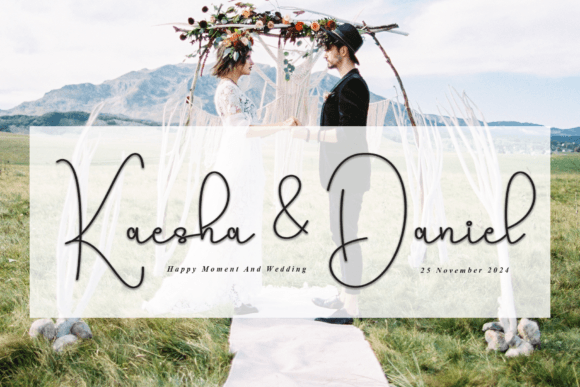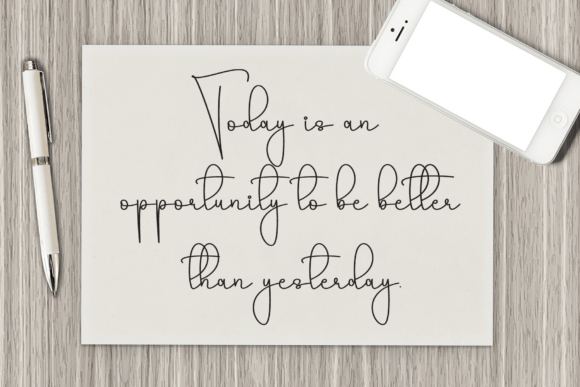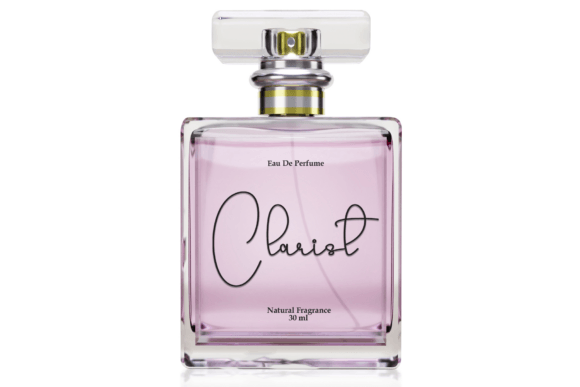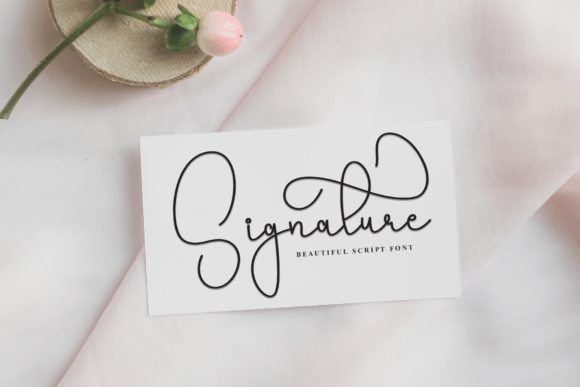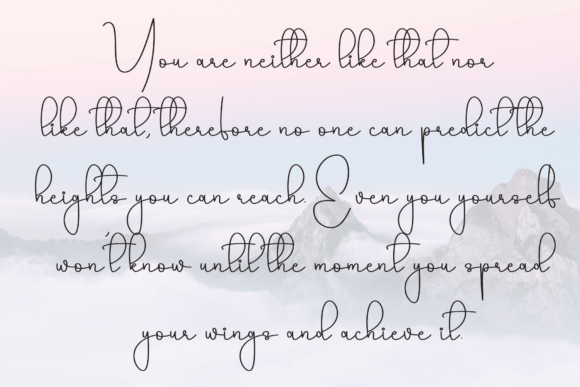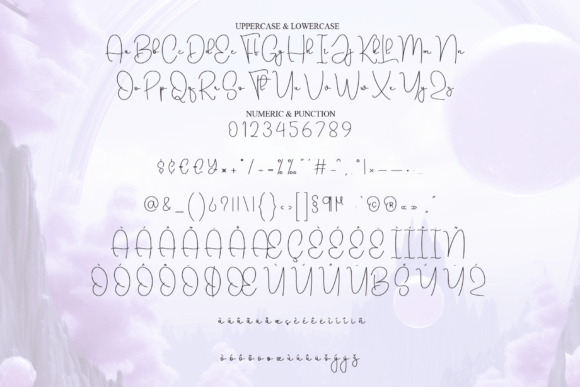
The Magic of Fantasy Font: Elevate Your Designs with Elegance
I’ll never forget the time I was working on a wedding invitation project, and my client asked for a font that would make their special day feel like a fairytale. I scoured the internet, tried countless fonts, but nothing seemed quite right. That was until I stumbled upon Fantasy Font. Its smooth, flowing letterforms and handcrafted feel instantly transported me to a world of romance and whimsy. I knew right then and there that I had found the perfect fit.
A Personal Review: What I Love and What to Watch Out For
- ✨ Elegant script font with a sophisticated feel
- ✅ Smooth, flowing letterforms that dance across the page
- ✅ Handcrafted feel that adds a touch of whimsy to any design
- ✅ Perfect for wedding invitations, logos, branding, and social media
A Few Quirks to Keep in Mind 🤔
- ⚠️ Some letters may require manual kerning for optimal spacing
- ⚠️ Limited availability of certain OpenType features in certain software
The Story Behind Fantasy Font: A Glimpse into the Design Process
According to the font’s creators, Fantasy Font was inspired by the art of traditional calligraphy. They wanted to craft a font that would evoke the feeling of hand-written letters and invitations, while still being versatile enough for modern design applications.
Q: Is Fantasy Font suitable for body text?
A: While Fantasy Font is stunning as a display font, it may not be the best choice for body text due to its script nature and potential readability issues at smaller sizes.